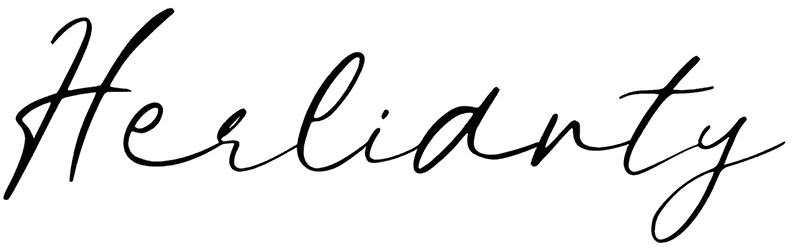
Herlianty Font
Are you still at a crossroads to choose a suitable font for designing monogrammed logos, wedding card entries, quotes, and texts printed on shopping bags and T-shirts? If you are looking for a good script font, we recommend Herlianty. This beautiful thin font is very delicate and can give a stylish and elegant look to your writing.